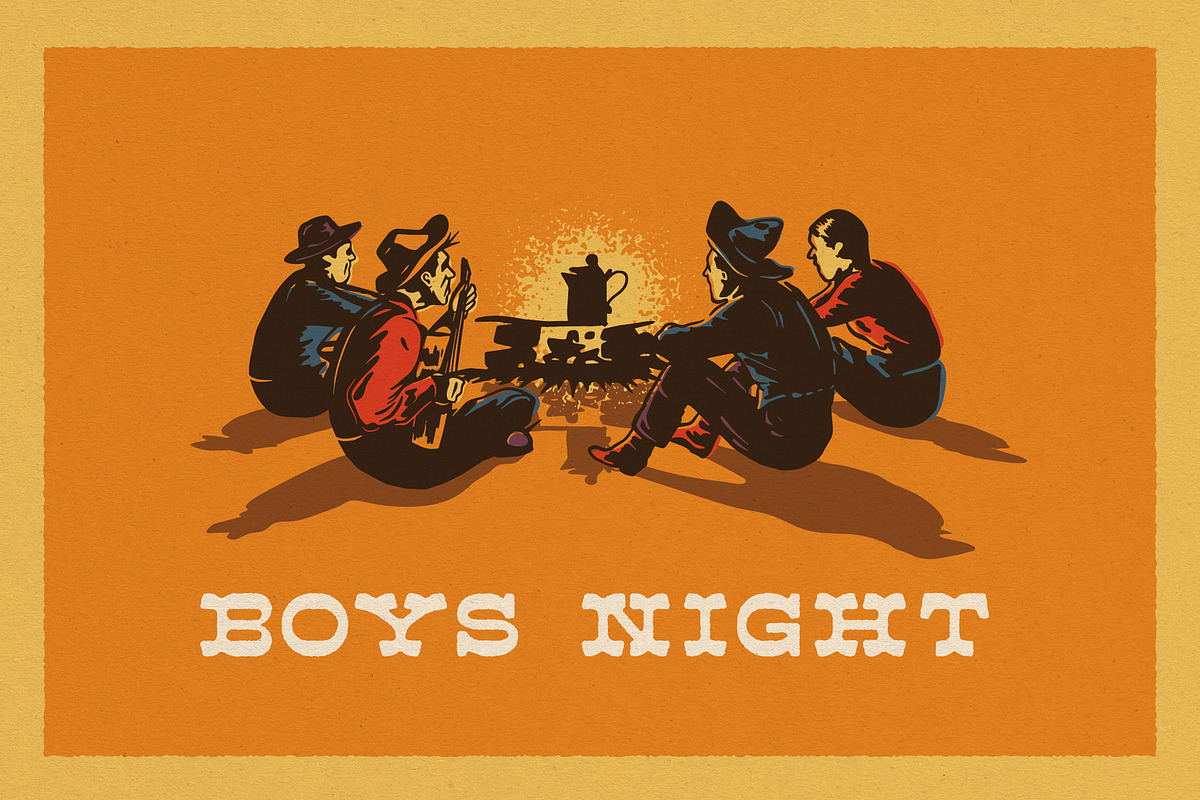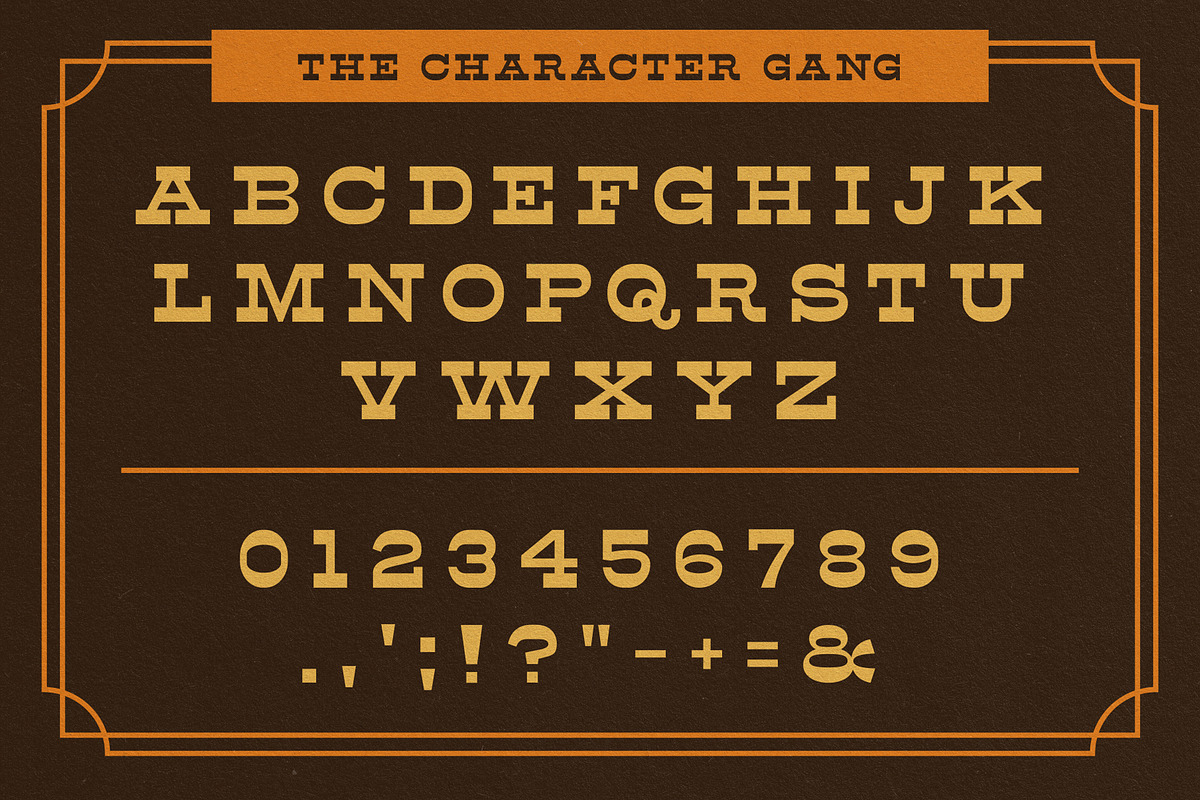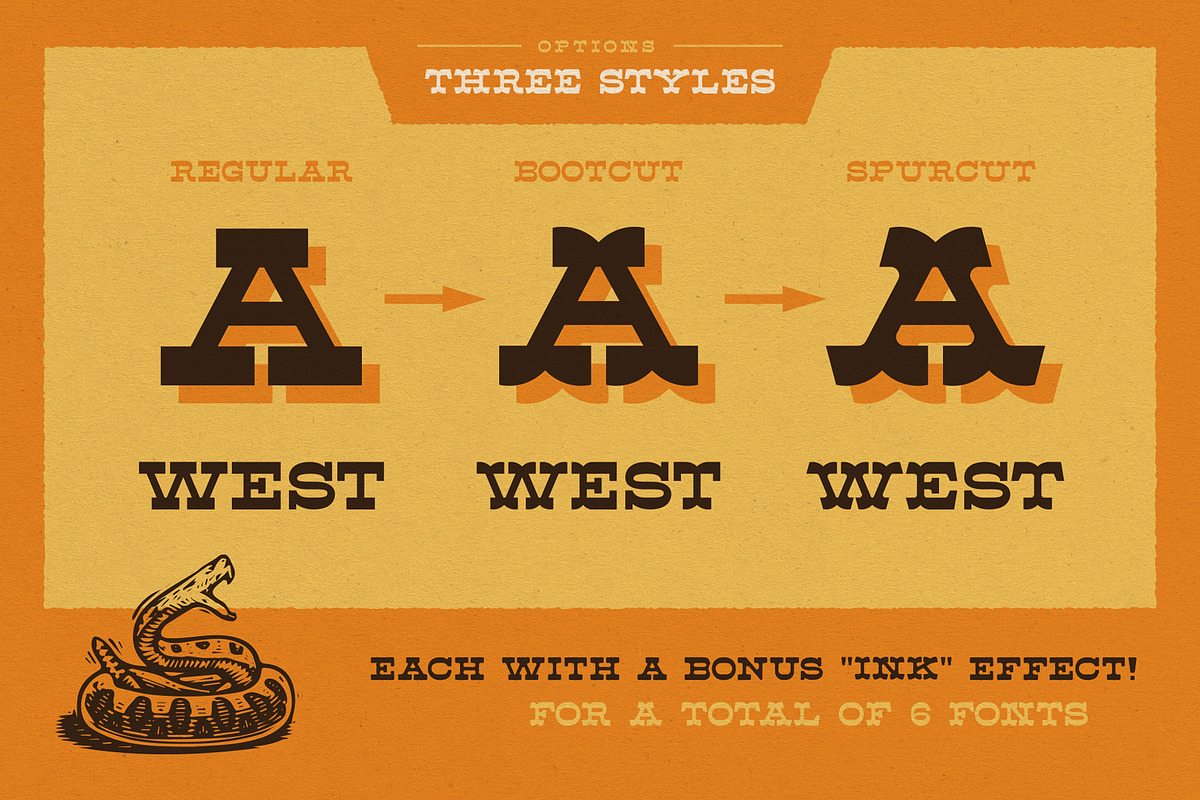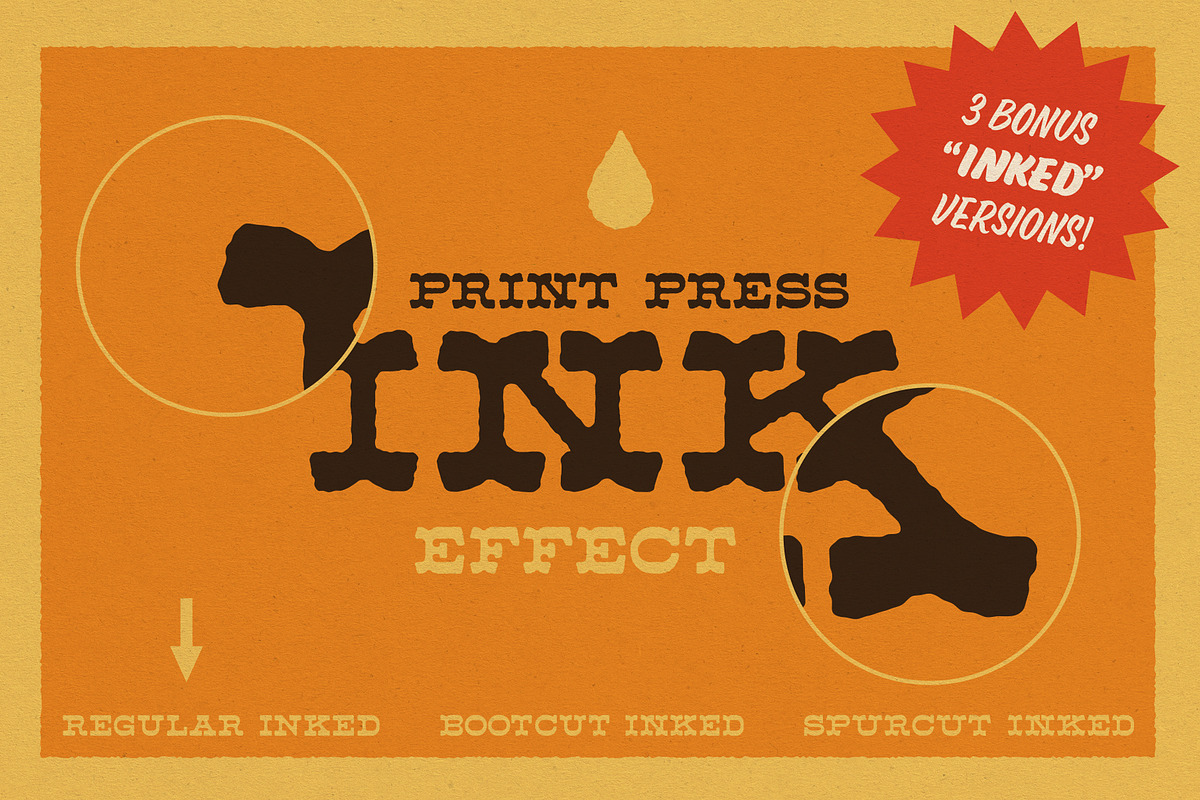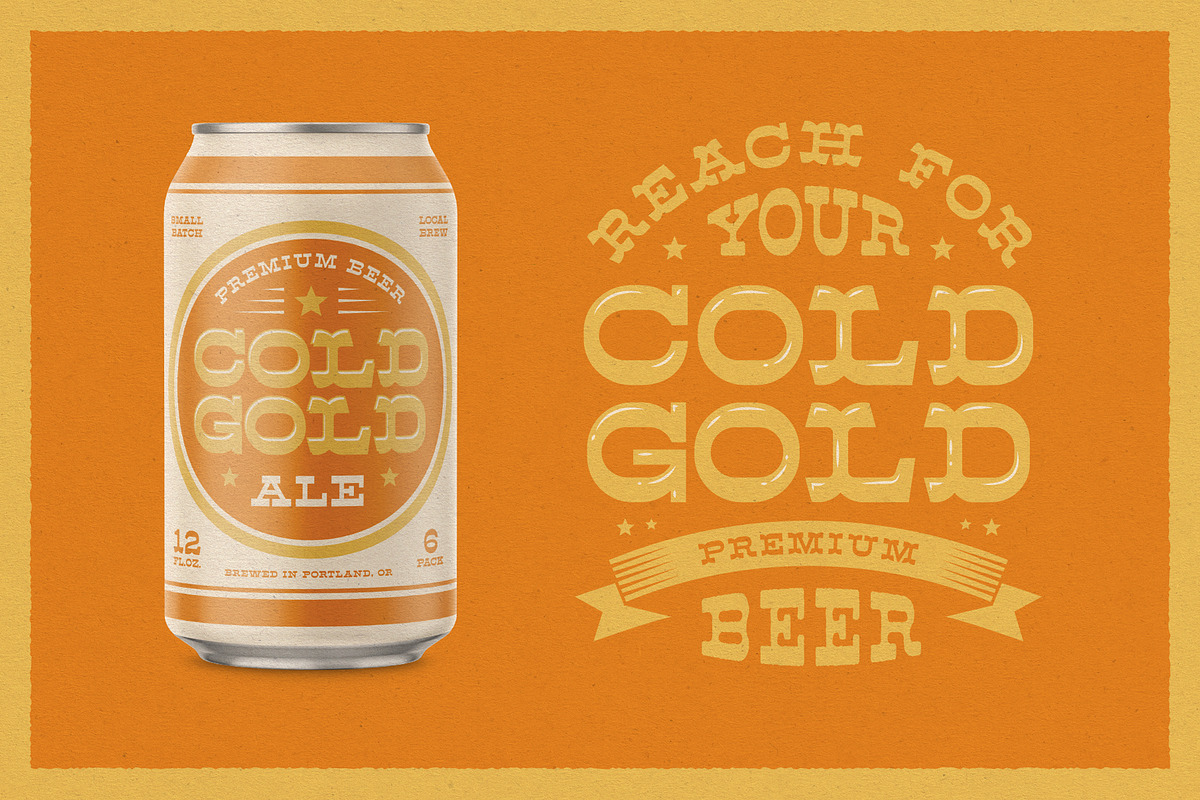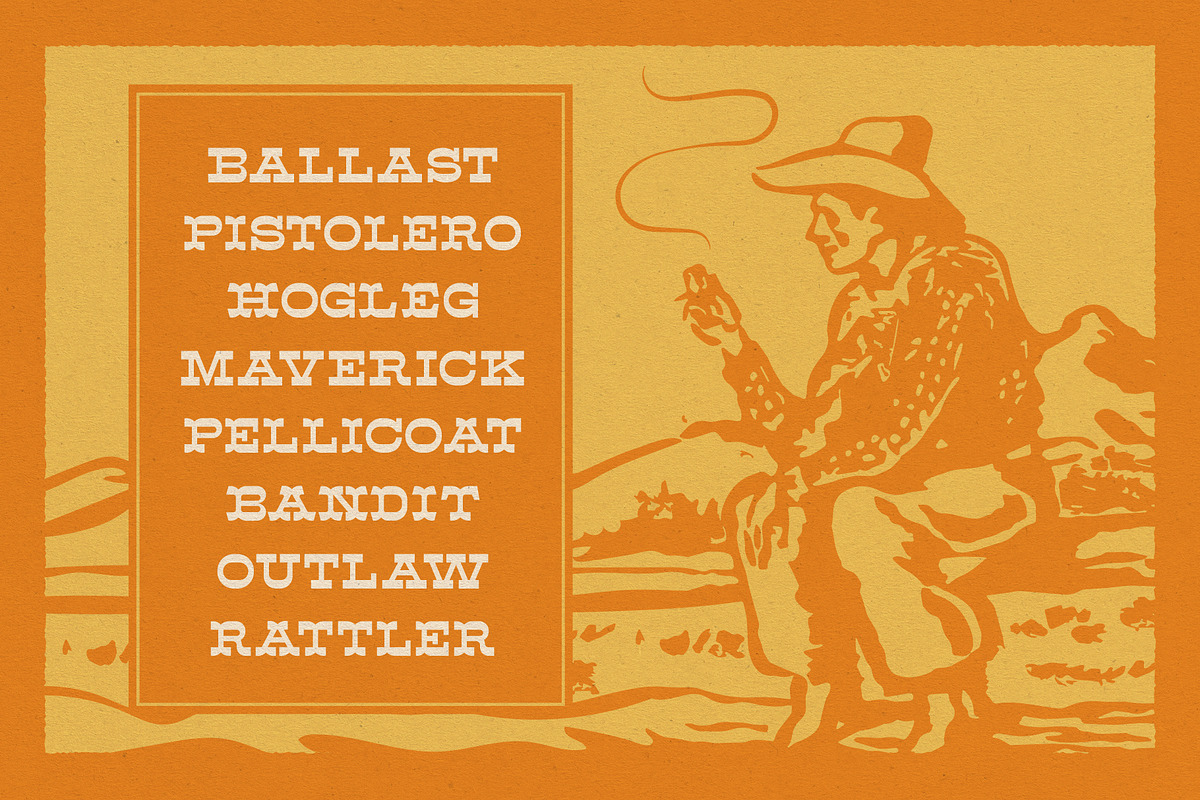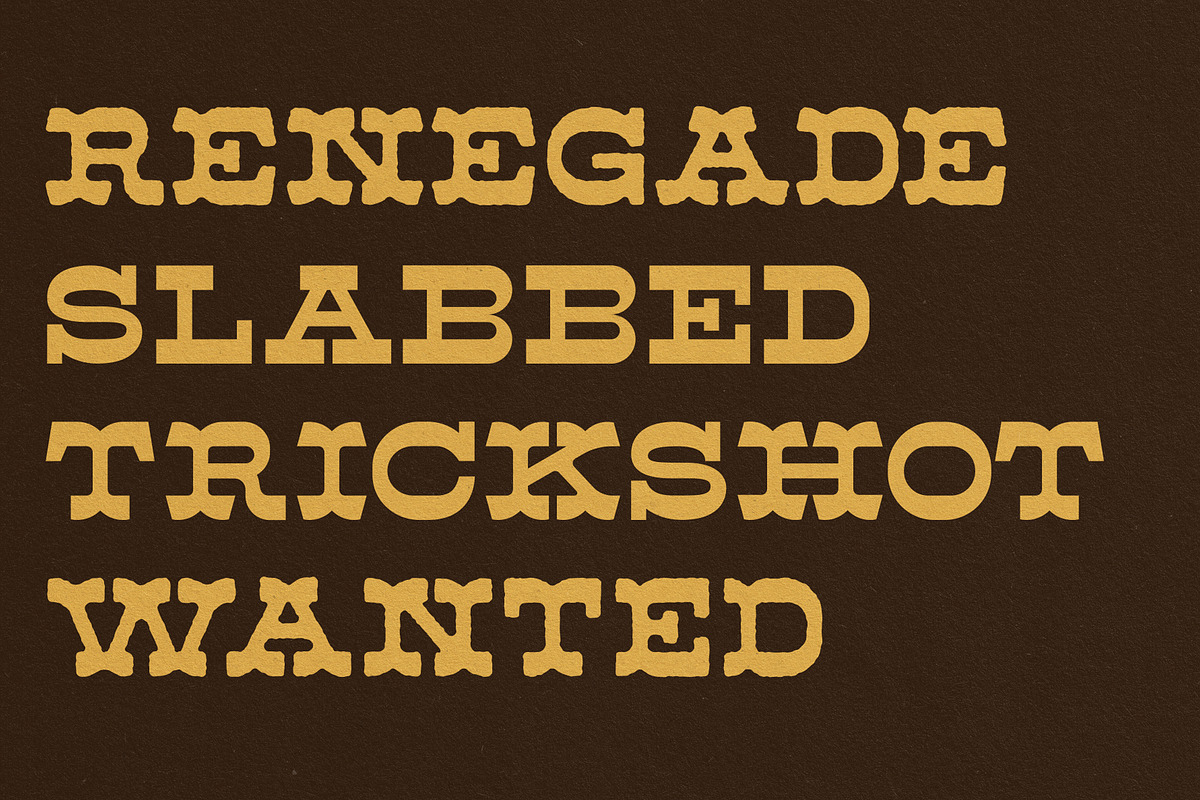
Ripshot Slab Serif Font
Ripshot Slab is a thick, unapologetic slab built within the peaks and valley's of the Wild West. It wears sturdy boots alongside a 10 gallon hat, delivering a top/bottom weight that's ready at the holster for any draw. With three unique styles: Regular, BootCut, and the renegade SpurCut, alongside another three inky, 19th century print-press versions, the Ripshot 6 are a force to be reckoned with.
Full set of uppercase letters, numerals, and large range of punctuation
Three bonus "inked" versions of each style
- Ripshot Slab Regular
- Ripshot Slab Boot Cut
- Ripshot Slab BootCut Inked
- Ripshot Slab Inked
- Ripshot Slab Spur Cut
- Ripshot Slab SpurCut Inked